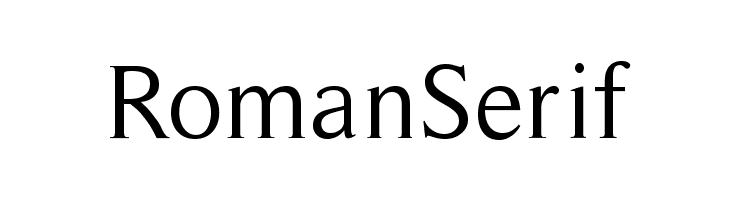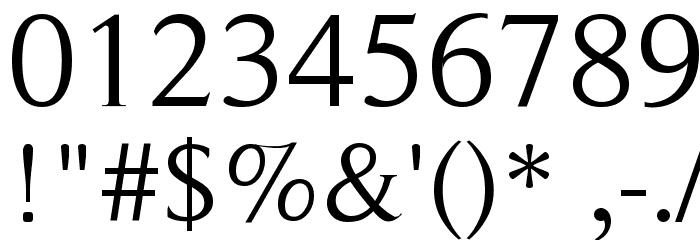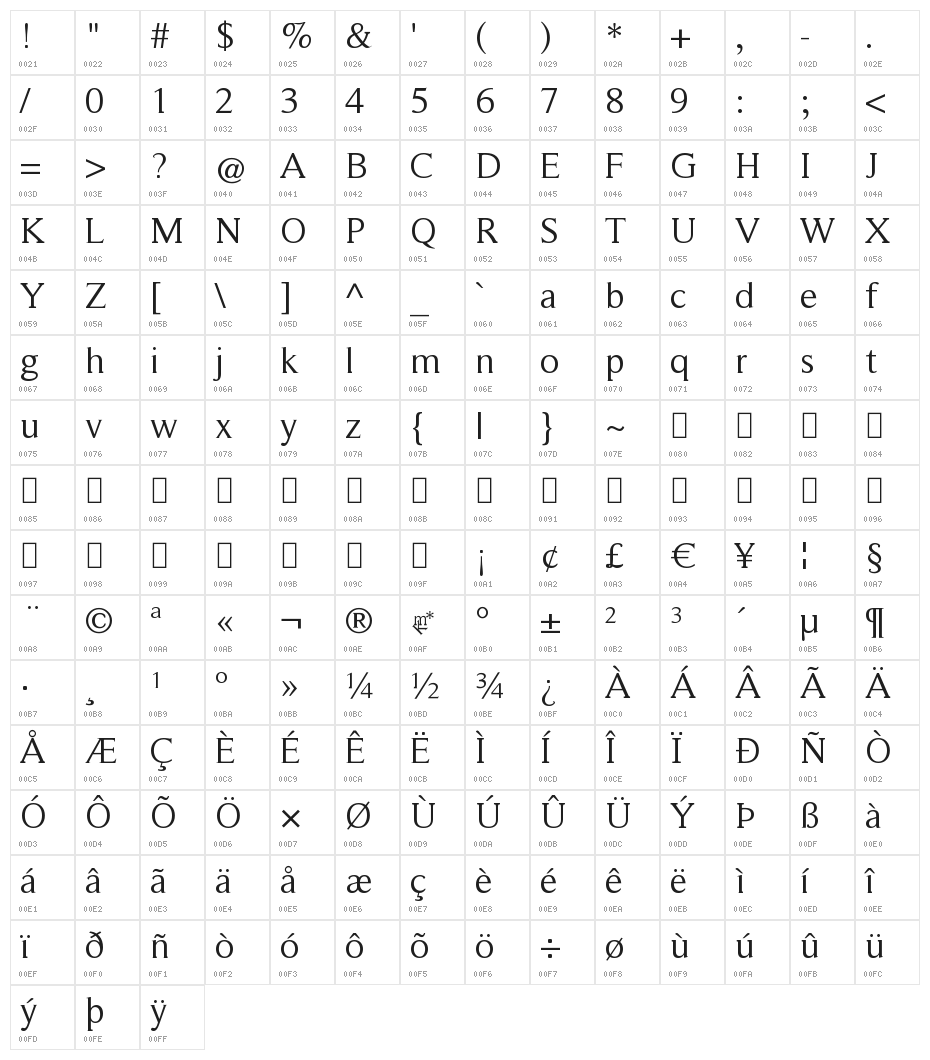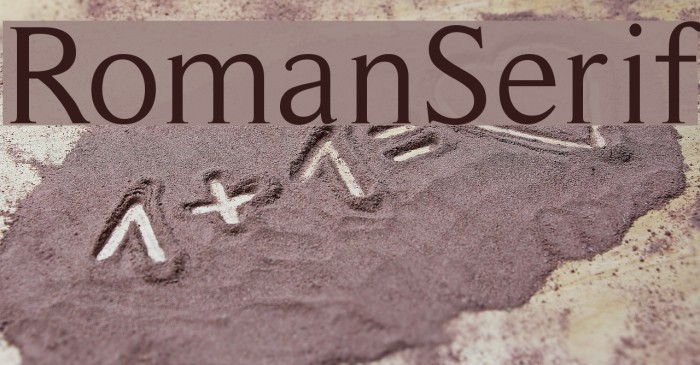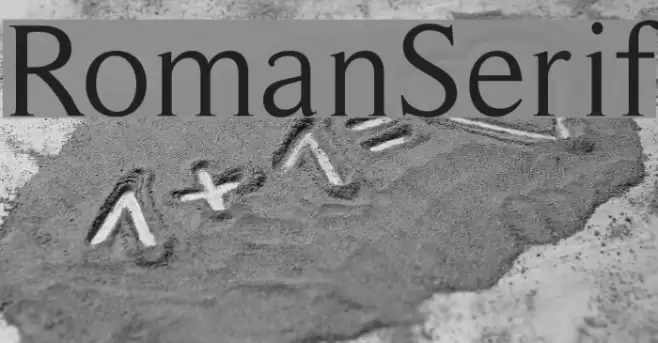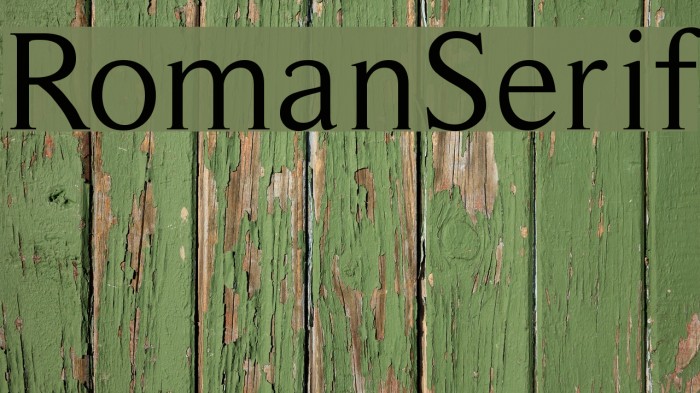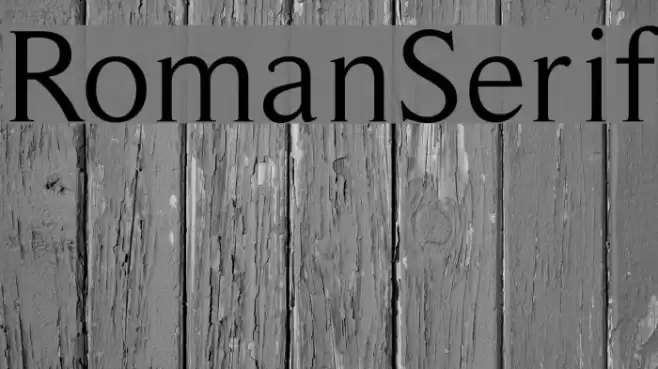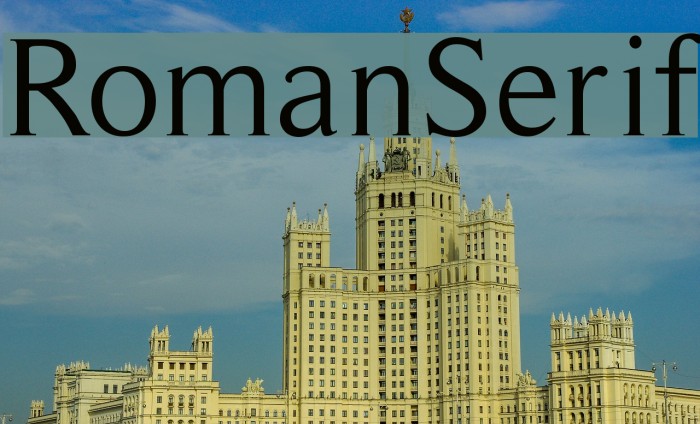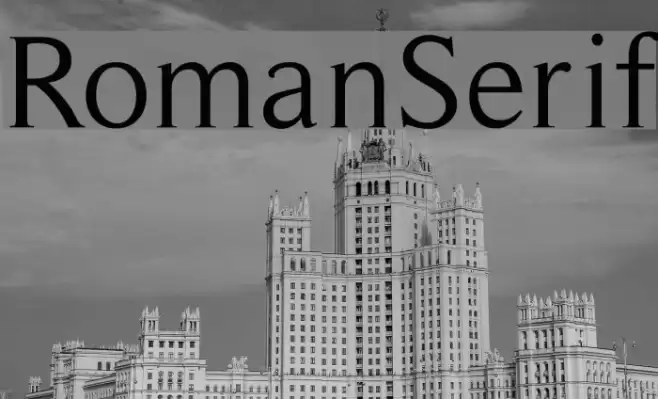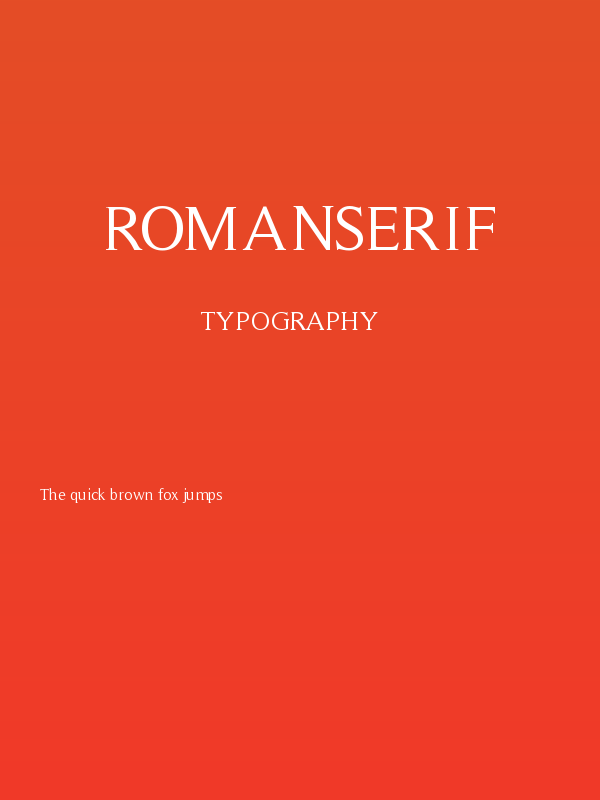
RomanSerif Font
This font exudes a classic elegance with its refined serif details and balanced proportions. The uppercase letters are stately and well-defined, while the lowercase characters maintain a harmonious flow. The numerals are clear and legible, complementing the overall sophisticated aesthetic. The special characters are thoughtfully designed, ensuring consistency across all glyphs. This font is versatile, suitable for both formal and contemporary applications, making it a timeless choice for various design needs.
Overall StyleClassic
Use CaseHeadlines, Body text, Logos
Proposed ProjectsIdeal for book covers, editorial layouts, branding, and formal invitations.